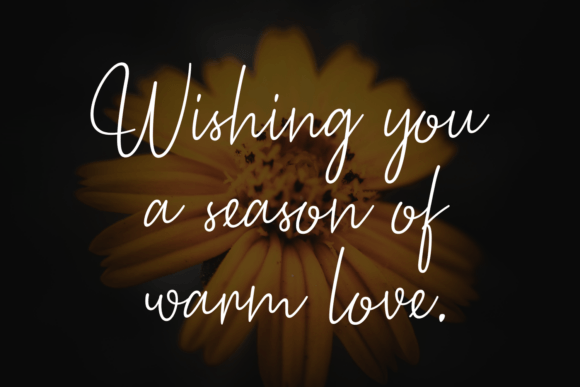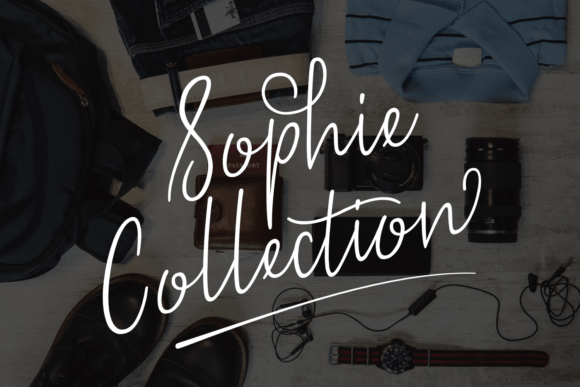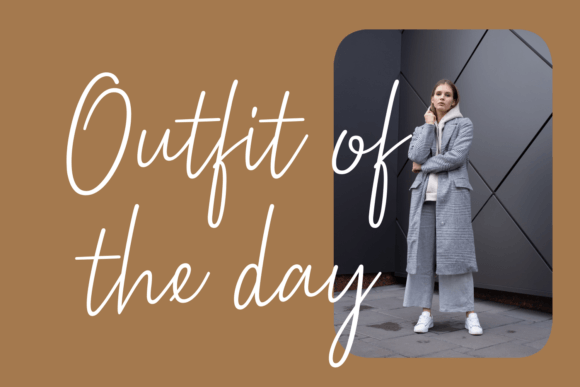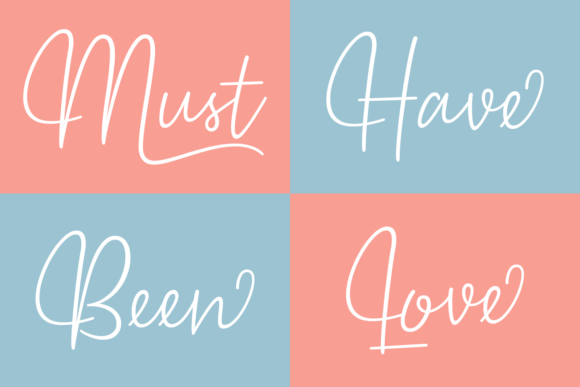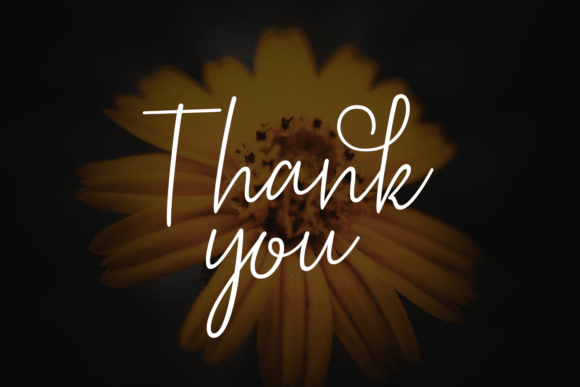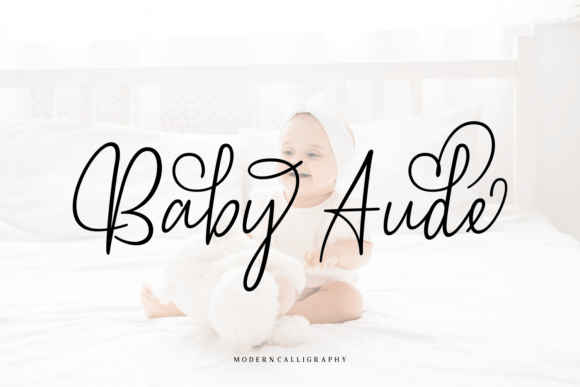
Baby Aude Font: The Perfect Choice for Creative Projects
Baby Aude is a delightful calligraphy font that has captured the hearts of designers and crafters alike. This cute and playful script features soft, flowing letters with elegant flourishes, making it an ideal choice for a variety of creative projects. Whether you’re designing invitations, greeting cards, or any other visual material, Baby Aude is sure to add a touch of charm and sophistication.
The Characteristics of Baby Aude Font
Baby Aude is a script font that boasts a friendly feel, with each letter connecting smoothly to create a flowing and artistic look. The font features:
- Soft and flowing letters: Baby Aude’s letters are designed to flow smoothly into one another, creating a beautiful and harmonious visual effect.
- Elegant flourishes: The font features elegant flourishes that add a touch of sophistication and whimsy to any design.
- Cute and playful feel: Baby Aude has a playful and charming personality that makes it perfect for projects that require a touch of warmth and personality.
Uses for Baby Aude Font
Baby Aude is a versatile font that can be used for a wide range of creative projects, including:
- Invitations: Whether you’re planning a wedding, birthday party, or baby shower, Baby Aude is the perfect choice for designing beautiful and elegant invitations.
- Greeting cards: Add a personal touch to your greeting cards with Baby Aude’s charming and artistic script.
- Creative projects: From DIY crafts to digital art, Baby Aude is a great choice for any project that requires a touch of elegance and whimsy.
Why Designers and Crafters Love Baby Aude Font
Designers and crafters love Baby Aude for its unique combination of elegance and playfulness. Here are just a few reasons why:
- Easy to read: Despite its elegant and flowing design, Baby Aude is easy to read and understand, making it perfect for projects that require clear communication.
- Highly versatile: Baby Aude can be used for a wide range of projects, from formal invitations to playful DIY crafts.
- Unique and eye-catching: Baby Aude’s charming and artistic script is sure to grab attention and make your designs stand out.
Tips for Using Baby Aude Font
Here are a few tips for getting the most out of Baby Aude:
- Pair with complementary fonts: Baby Aude pairs well with a variety of fonts, including sans-serif and serif fonts. Experiment with different combinations to find the perfect look for your project.
- Use for headlines and titles: Baby Aude’s elegant and flowing script makes it perfect for headlines and titles. Use it to add a touch of sophistication to your designs.
- Experiment with colors and textures: Baby Aude looks great in a variety of colors and textures. Experiment with different combinations to find the perfect look for your project.
Baby Aude is a beautiful and versatile calligraphy font that’s perfect for designers and crafters. Its soft, flowing letters and elegant flourishes make it a great choice for a wide range of creative projects, from invitations and greeting cards to DIY crafts and digital art. With its friendly feel and charming personality, Baby Aude is sure to add a touch of warmth and sophistication to any design.